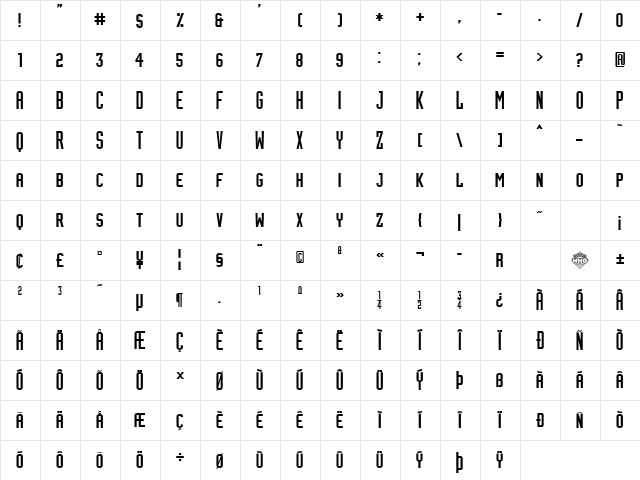
Assiduous SmallCaps
Design Context for Assiduous Typeface
Assiduous is a composed and adaptable typeface that performs quietly and consistently across a wide range of design contexts.